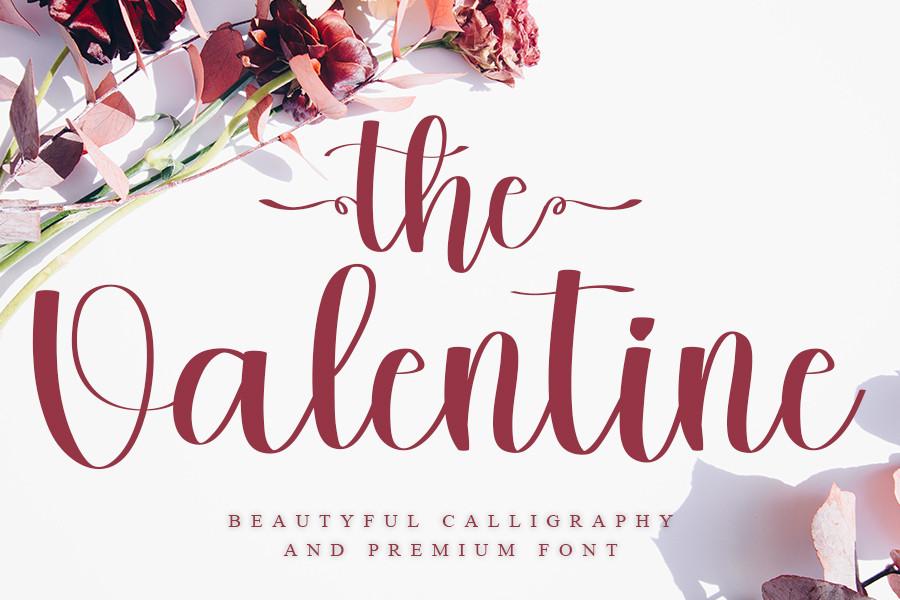
The Valentine Font Description
The Valentine is a magical script font carefully created with a touch of elegance. Whether you’re looking for fonts for Instagram or calligraphy scripts for DIY projects, this font will turn any creative idea into a true piece of art! It is PUA encoded which means you can access all of the glyphs and swashes with ease!